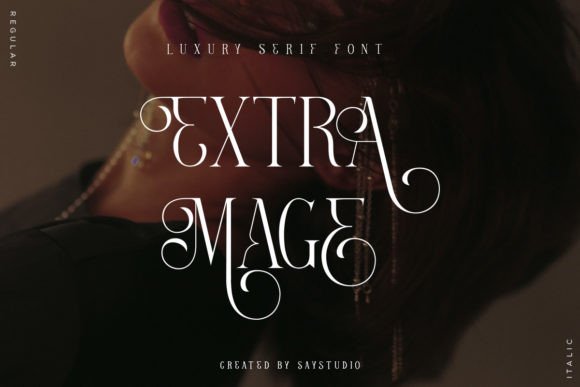
Dive into the realm of elegance and luxury with Extra Mage, the captivating serif font meticulously crafted by SayStudio. This font exudes a sense of refinement and sophistication, making it the perfect choice for projects that demand an air of distinction.
Extra Mage's intricate details and graceful curves evoke a timeless beauty, reminiscent of classic calligraphy. Each letterform is meticulously designed to create a harmonious balance between feminine delicacy and masculine strength. This unique duality allows Extra Mage to adapt seamlessly to a wide range of design projects, from elegant invitations to striking logos.
Picture your words adorned with the timeless grace of Extra Mage, inviting your readers to embark on a journey of visual enchantment. Whether you're creating captivating layout designs, crafting thought-provoking quotes, or designing eye-catching headings, Extra Mage will elevate your creations to new heights of sophistication.
But Extra Mage's versatility extends far beyond its visual appeal. PUA-encoded, this font grants you effortless access to a treasure trove of glyphs and swashes, empowering you to unleash your creativity and add a touch of personal flair to your designs.
With Extra Mage at your disposal, you'll discover a world of design possibilities, limited only by your imagination. Its versatility shines in logos, branding, magazines, product packaging, and invitations, leaving an indelible mark of elegance wherever it's applied.
Don't settle for ordinary fonts. Embrace the allure of Extra Mage, a font that transcends the boundaries of the mundane and opens the door to a realm of design excellence. Let your creations radiate with the timeless beauty and captivating presence that only Extra Mage can provide.